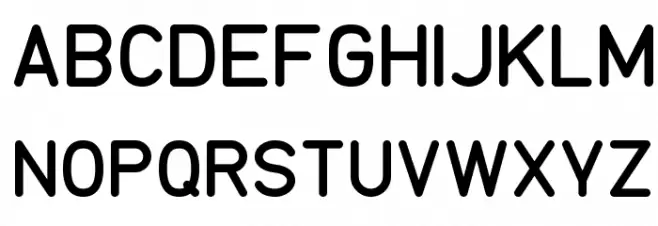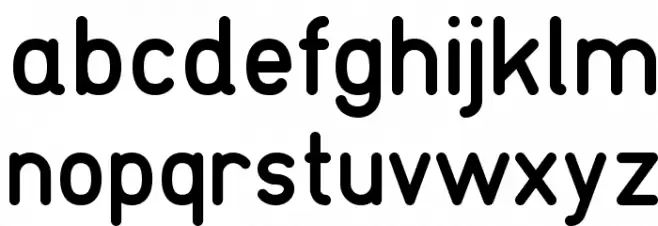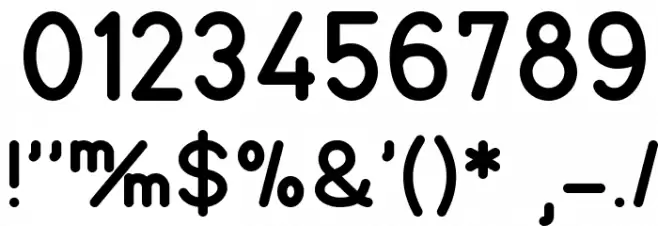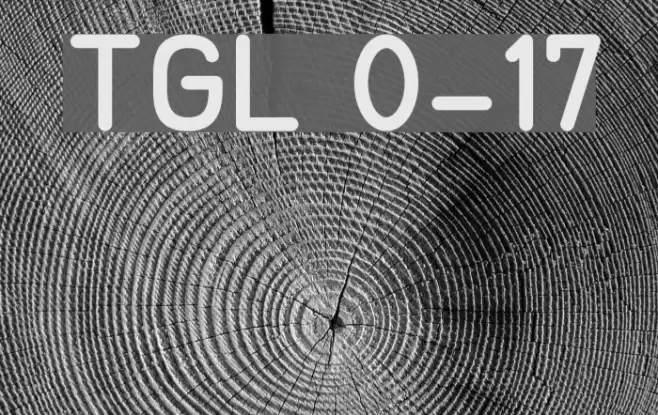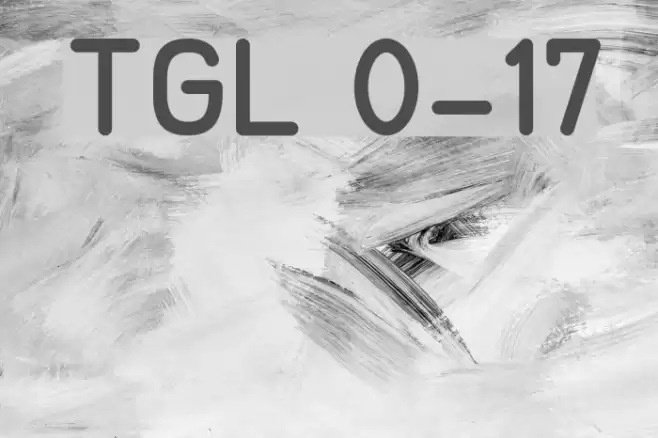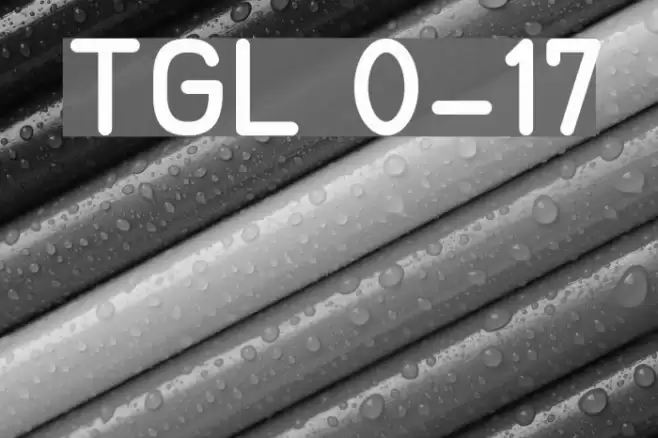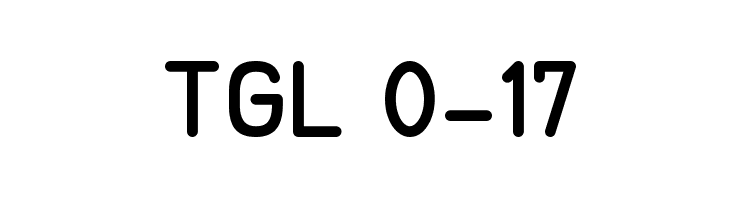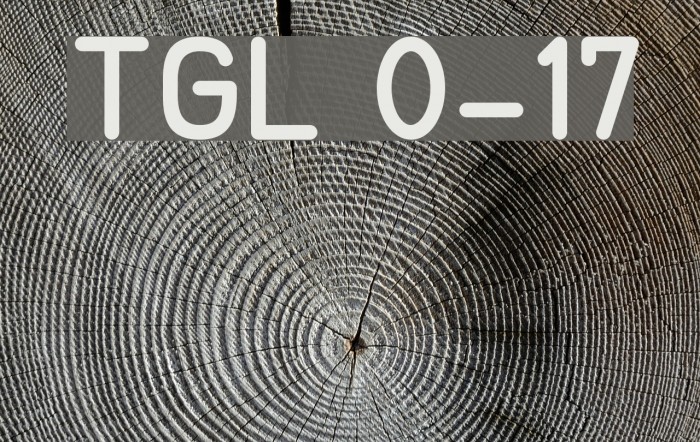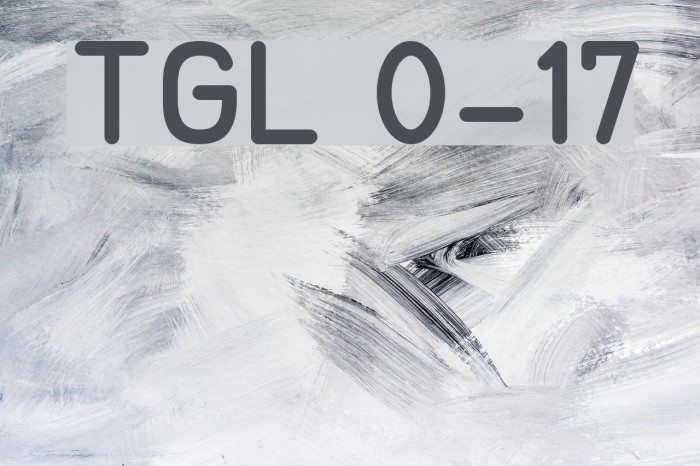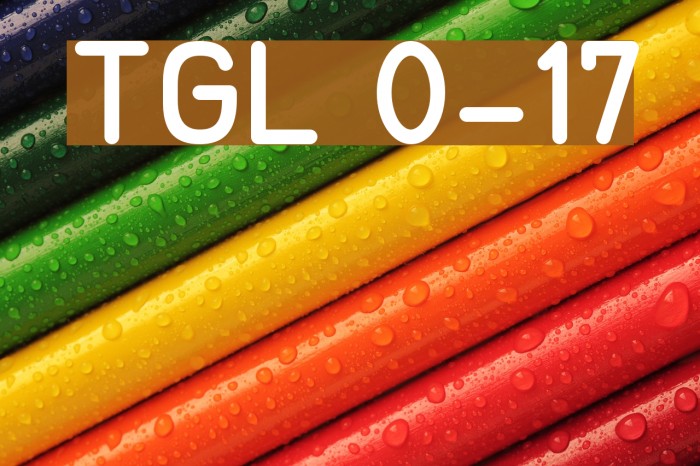
TGL 0-17
This font features a clean and modern sans-serif design with rounded edges, providing a friendly and approachable appearance. The characters are evenly spaced, contributing to excellent readability. The uppercase letters are bold and assertive, while the lowercase letters maintain a consistent style with slightly softer curves. The numerals are clear and distinct, making them suitable for various applications. The special characters are well-integrated, ensuring a cohesive look across all glyphs. Overall, this font balances simplicity with a touch of playfulness, making it versatile for both digital and print media.
A modern, rounded sans-serif font with excellent readability and a friendly appearance.